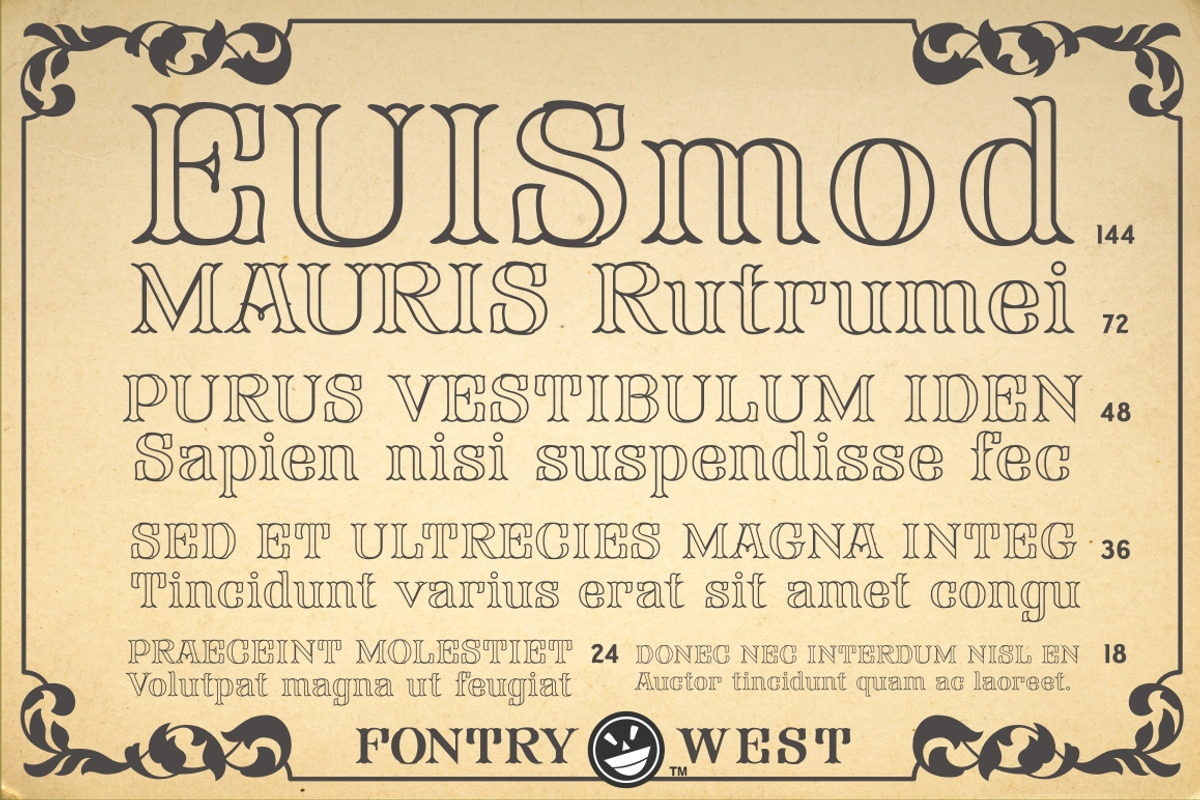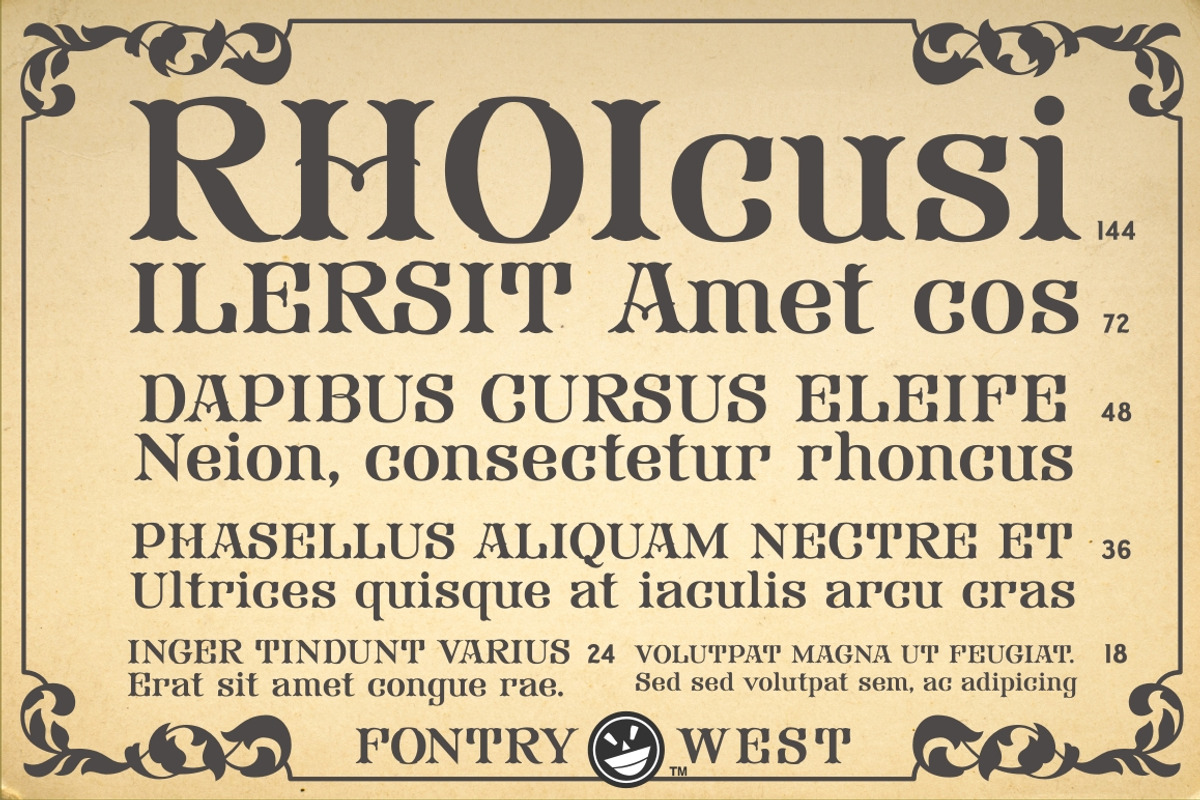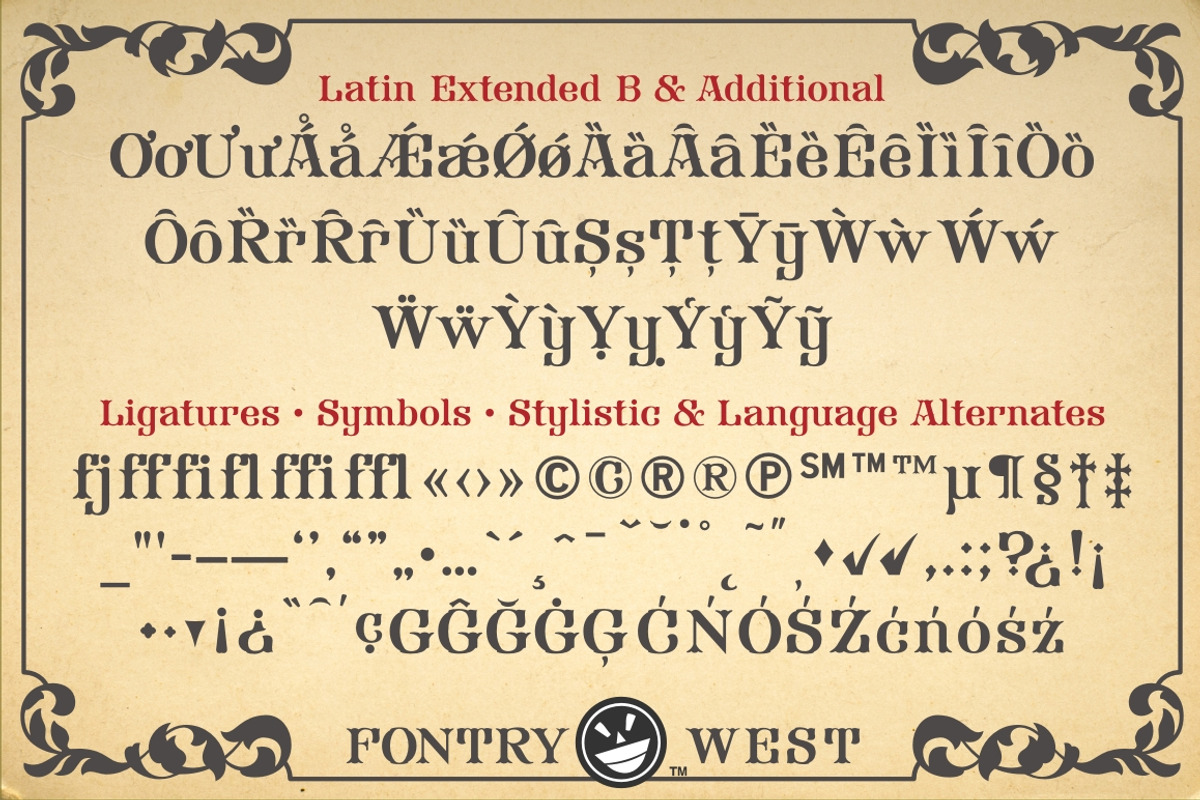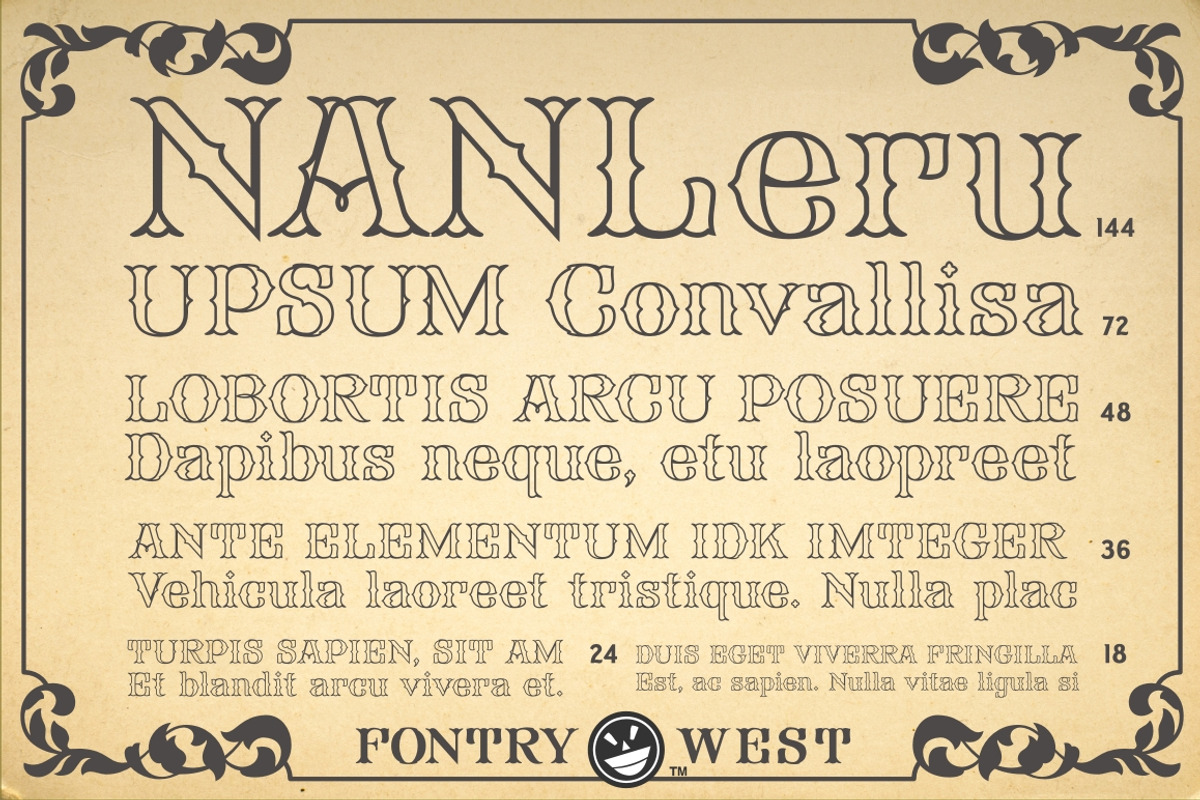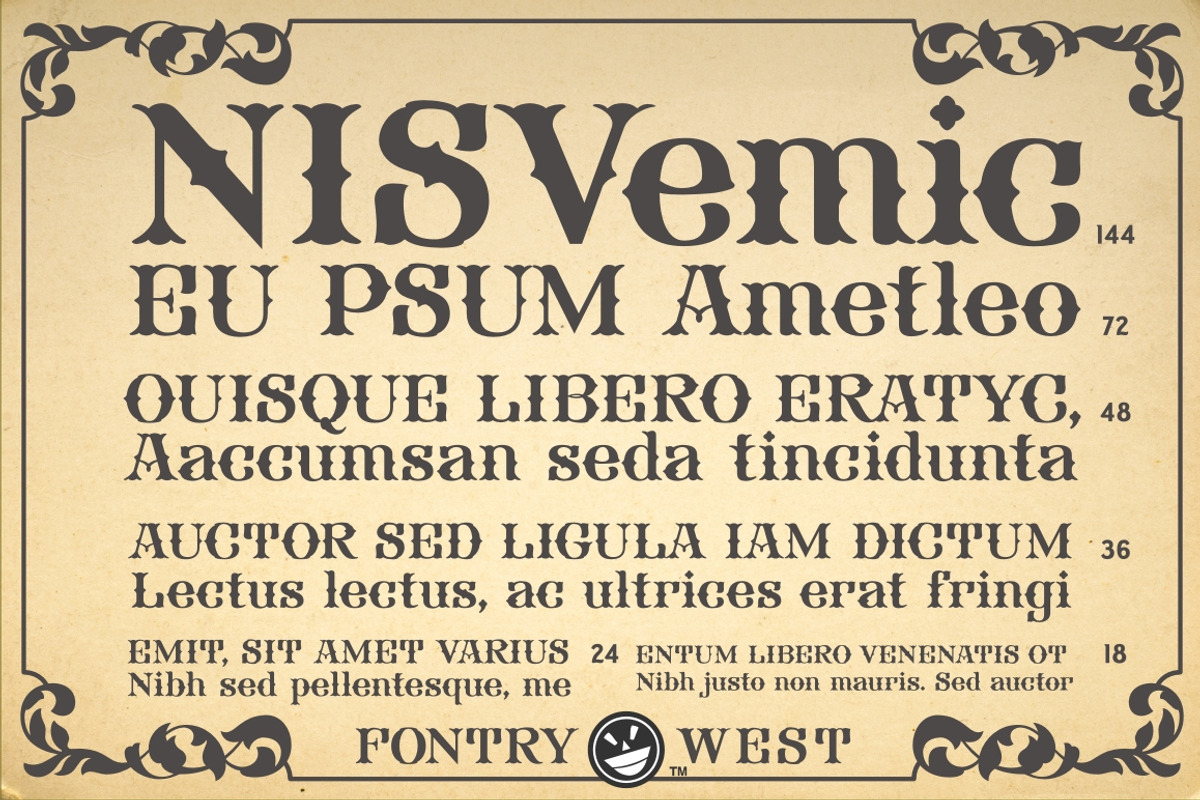
FHA Tuscan Roman
The first Tuscan lettering was penned in the mid-fourth century by the calligrapher Furius Dionysius Filocalus. The style was still in common usage as calligraphy when Vincent Figgins designed the first Antique Tuscan for print in 1817. Antique and Gothic Tuscan woodtype fonts appeared in the 1830’s. By the 1850’s, Tuscan fonts had become popular in America. These styles continued in print use into the twentieth century. Tuscan Antique and Gothic styles, borrowed from print and calligraphy, were perfect for signs, posters, handbills and other large format advertising. Sign painter, Frank Atkinson demonstrated several Tuscan forms in his book Sign Painting, A Complete Manual. Modified & Spurred Tuscan Romans were inspired by this and other works of the same period.
This collection includes the following: FHA Modified Tuscan Roman Open (an open-faced version of Modified) FHA Spurred Tuscan Roman Open (an open-faced version of Spurred)
Each font includes glyphs for several languages and some tasty stylistic alternates. In addition, the collection includes the Ornamentia™ No.1 packages of accents free.